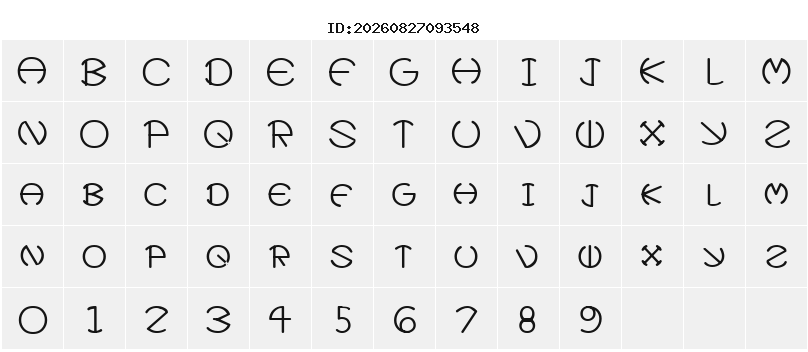
362-CAI978.ttf is a modern, elegant sans-serif font designed for ultimate readability and visual harmony. Perfect for branding, headlines, web design, and print materials.